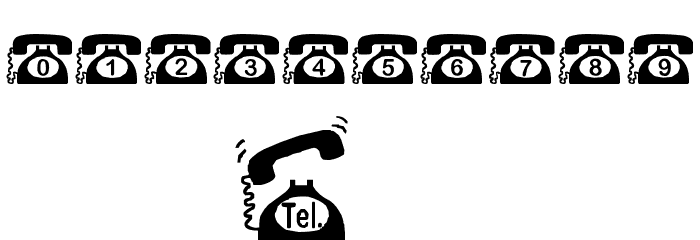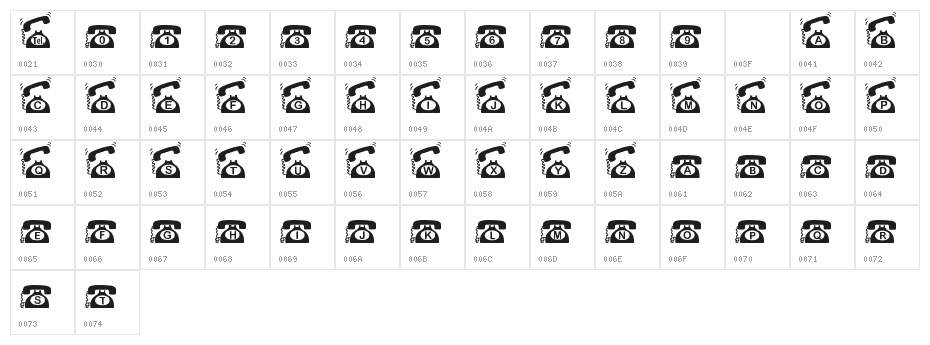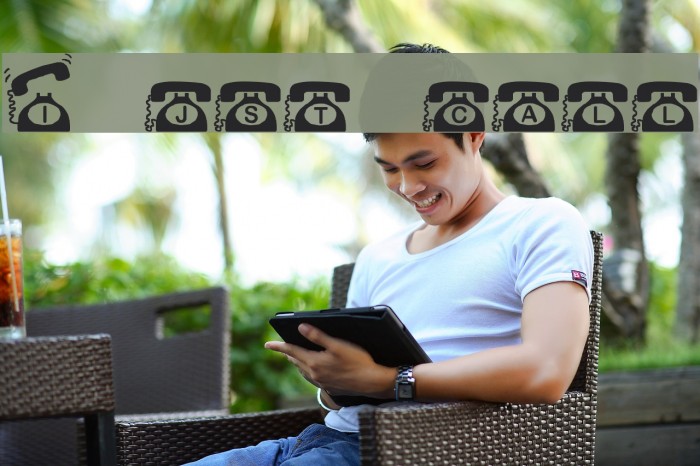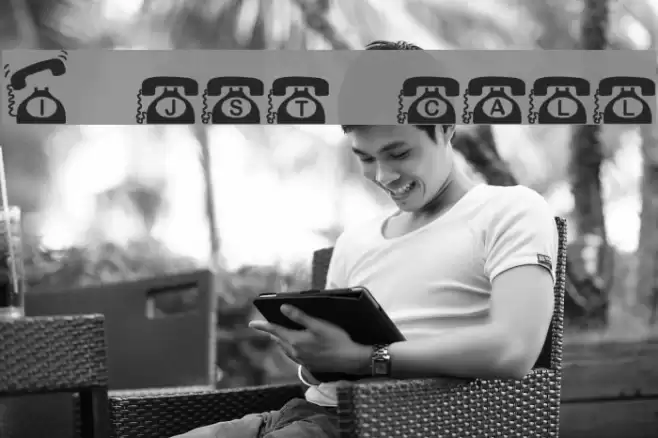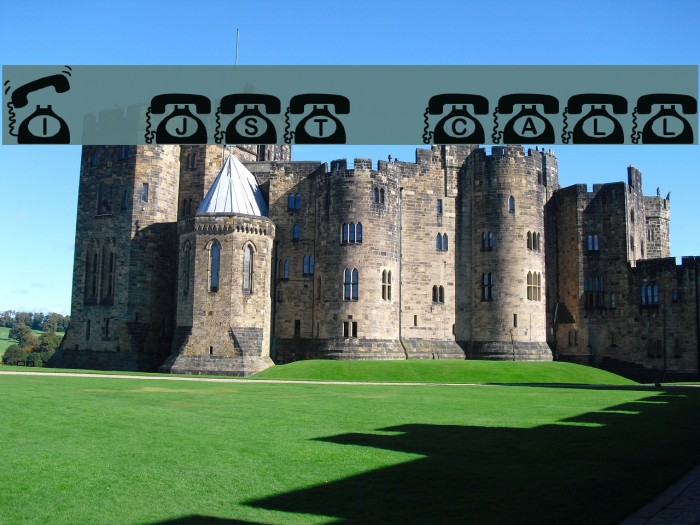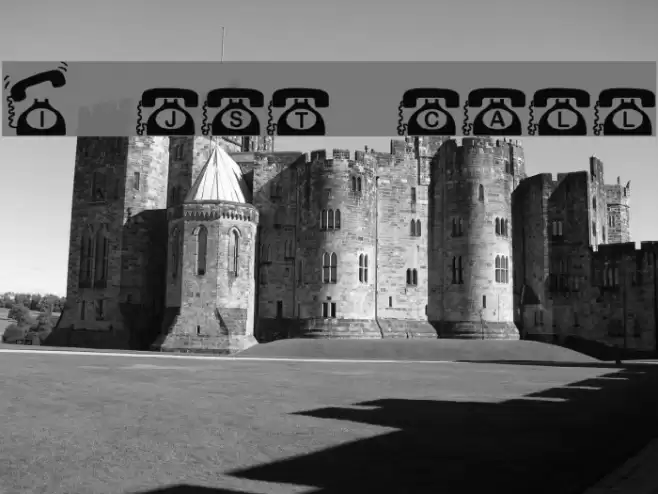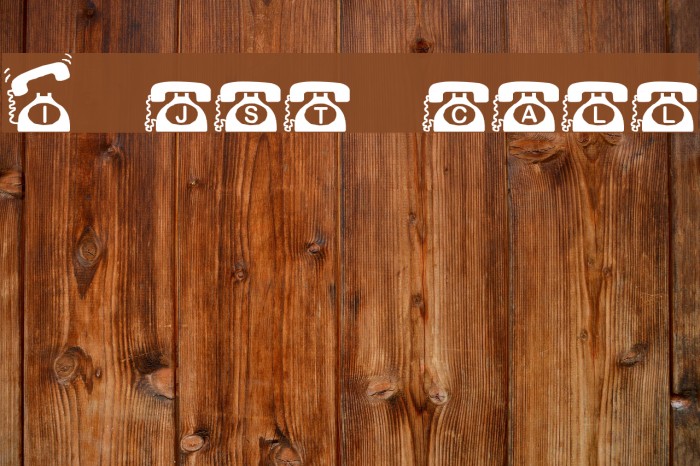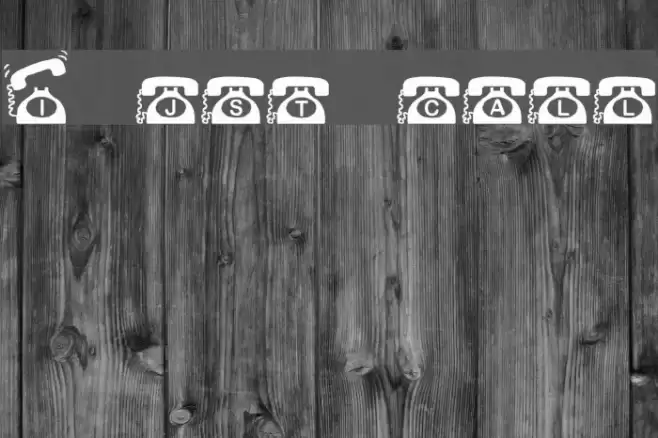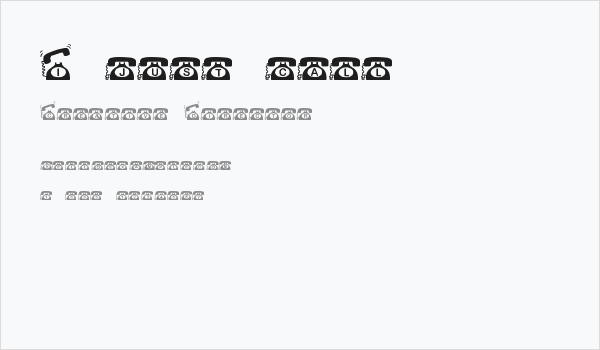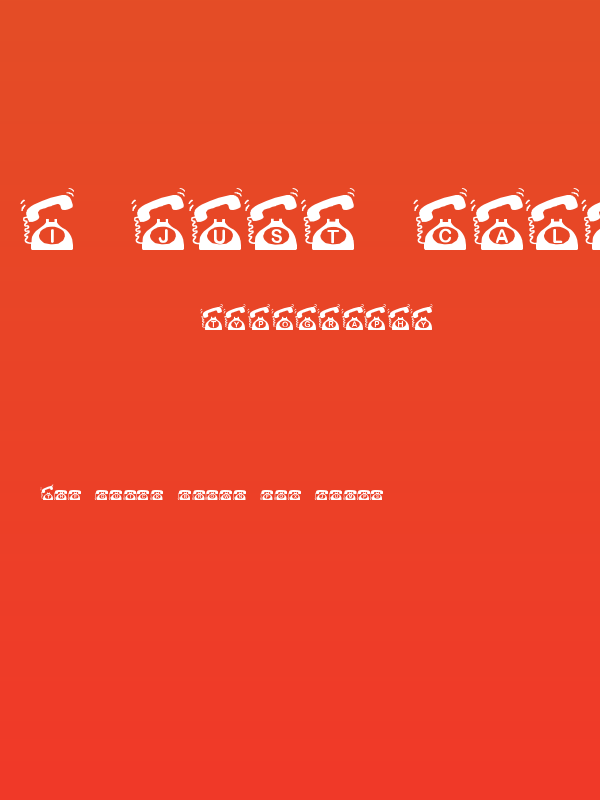
I just call Font
I just call Description
This playful and unique font features each character enclosed within the silhouette of a vintage rotary telephone. The design cleverly integrates the letters and numbers into the phone's body, creating a whimsical and nostalgic feel. The bold, black outlines of the telephones provide a strong visual impact, while the characters inside are clear and legible. This font is perfect for projects that aim to evoke a sense of retro charm or to add a quirky touch to designs. The consistent use of the telephone motif across all characters ensures a cohesive and thematic appearance.
| Use Case | Logos, Posters, Invitations |
| Proposed Projects | Ideal for retro-themed posters, playful branding, or creative invitations. |